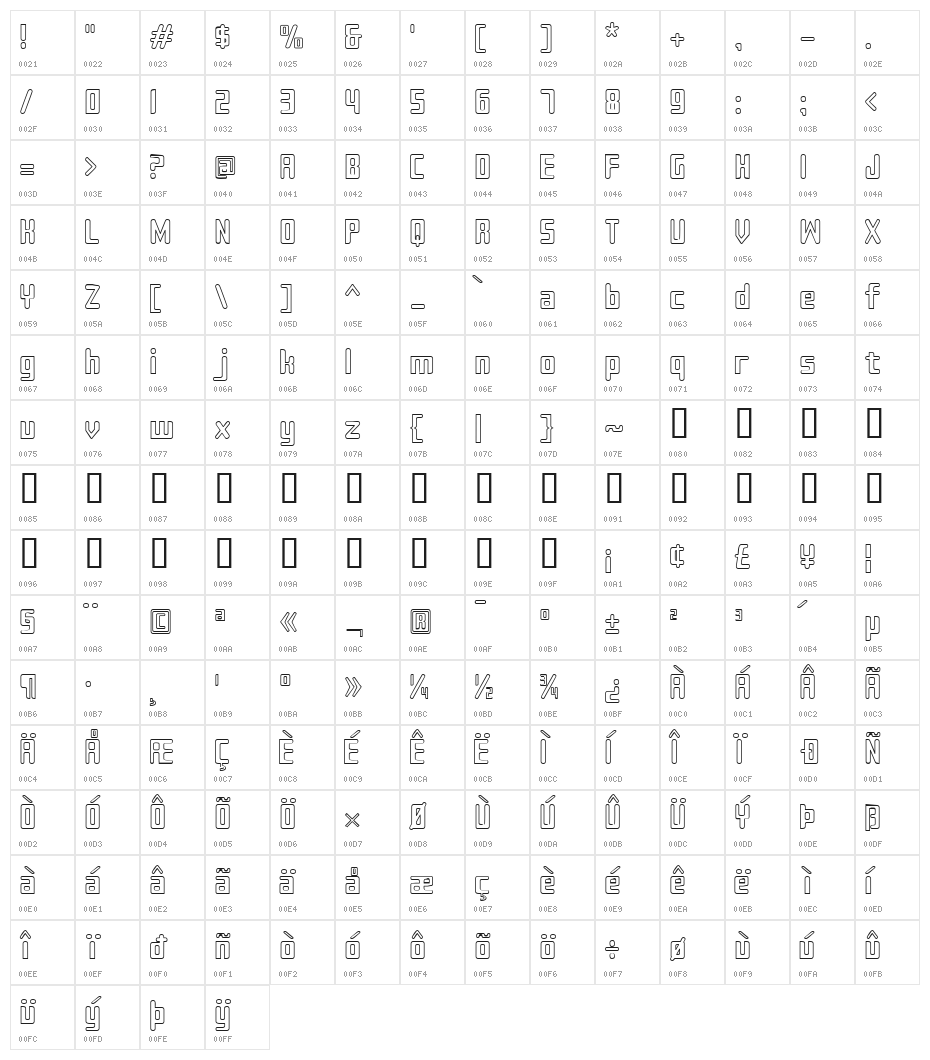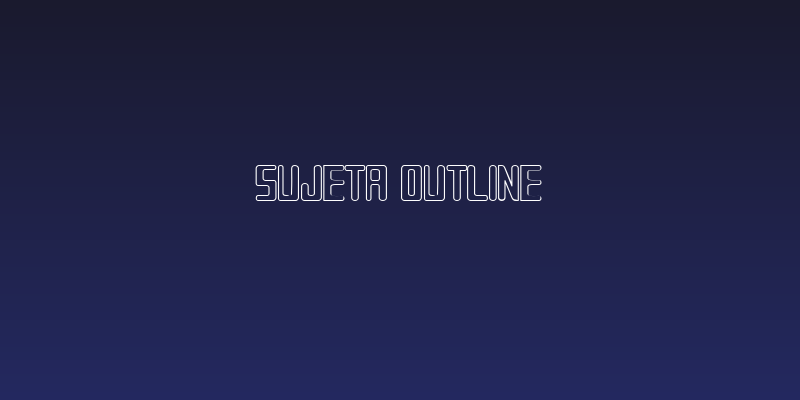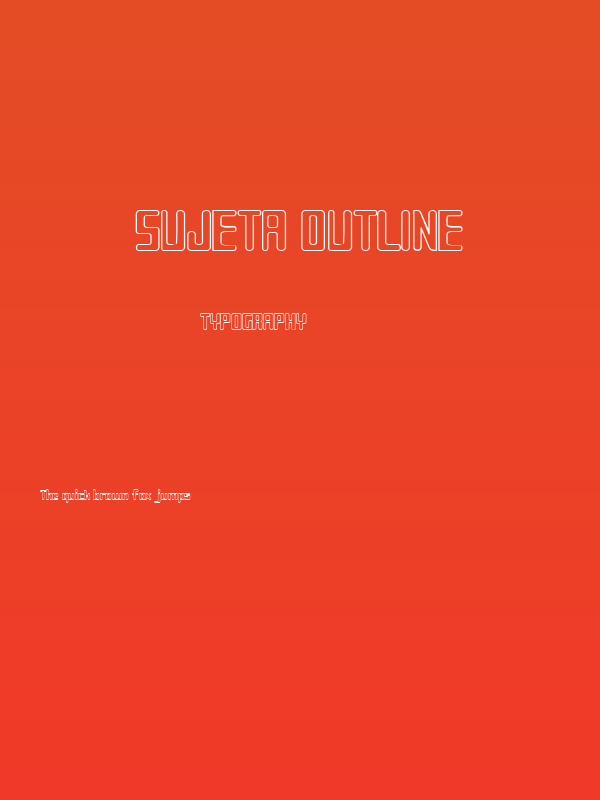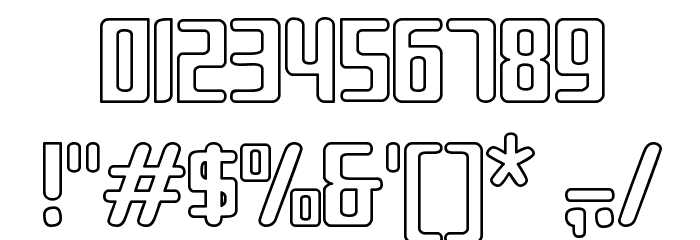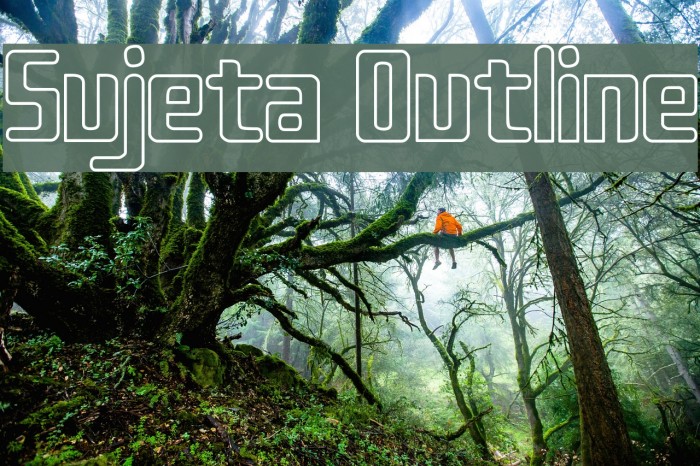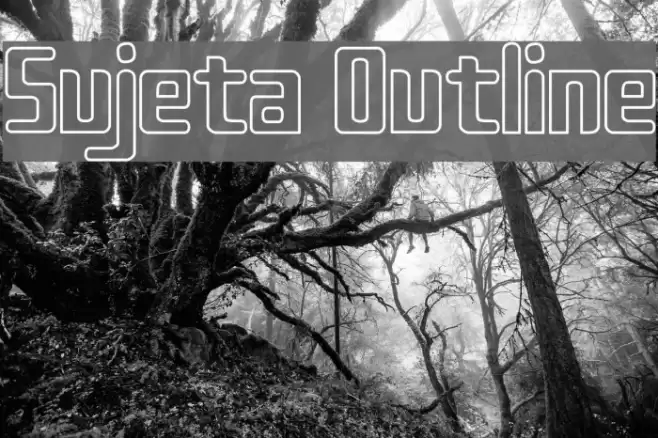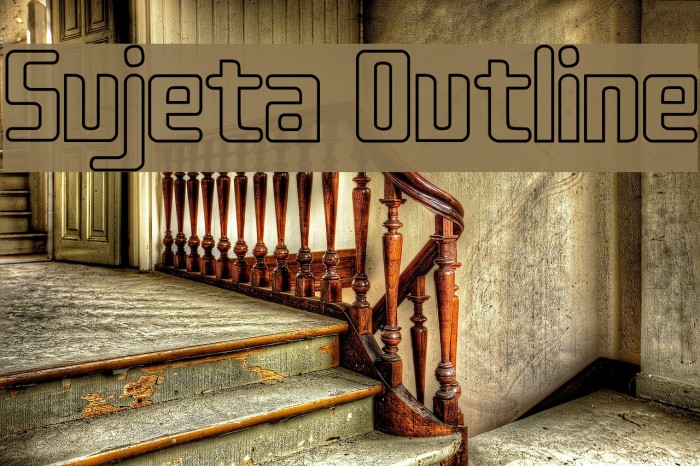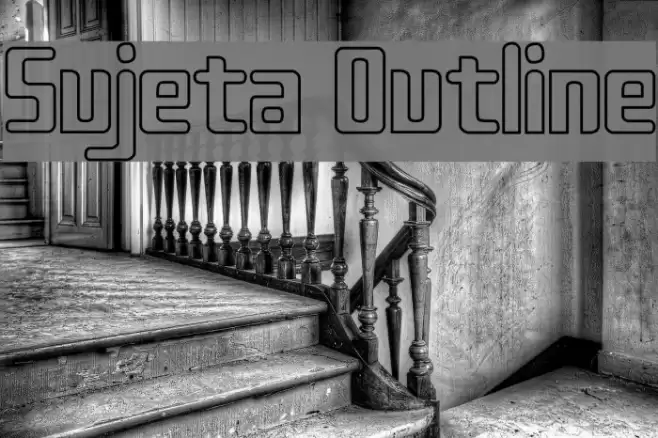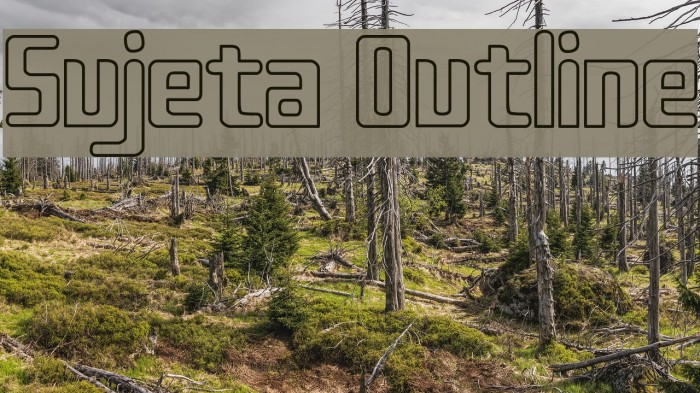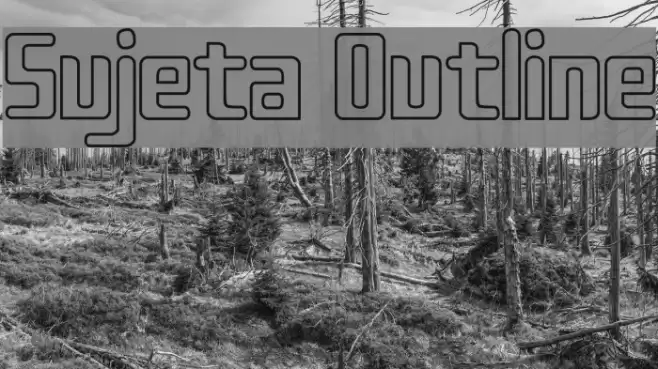
Sujeta Outline Font
Sujeta Outline Description
This font features a modern, geometric outline style with clean and precise lines. Each character is crafted with a consistent stroke width, creating a uniform and cohesive look. The uppercase and lowercase letters maintain a similar height, enhancing readability while offering a unique aesthetic. The numerals and special characters are designed to match the overall style, making them suitable for various design applications. The font's outline nature gives it a lightweight appearance, perfect for projects that require a contemporary and minimalistic touch.
| Use Case | Logos, Headlines, Posters |
| Proposed Projects | Ideal for branding, posters, digital media, and any design requiring a modern and minimalistic touch. |